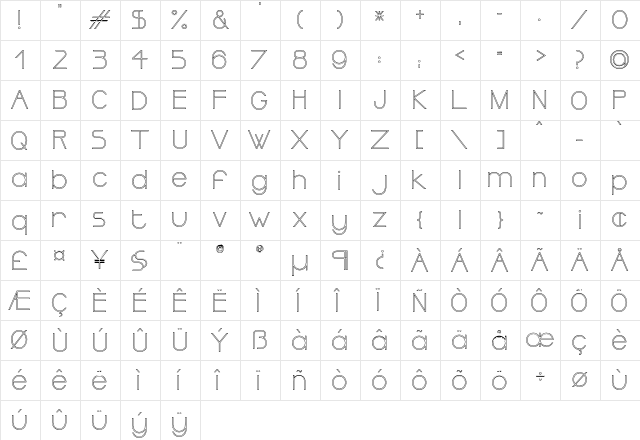
Ormont Outline
| Foundry | Youssef Habchi |
Design Context for Ormont Typeface
Ormont brings ornamental detail and strong personality to headlines and identities, where visual impact matters more than quiet functionality.
Font Pairing: Pair with a clean neutral sans-serif for body copy to let Ormont's character lead without overwhelming the composition.
Pro Tip: Treat Ormont as the centrepiece of your typographic hierarchy. One strong heading set in a decorative face can carry an entire layout.